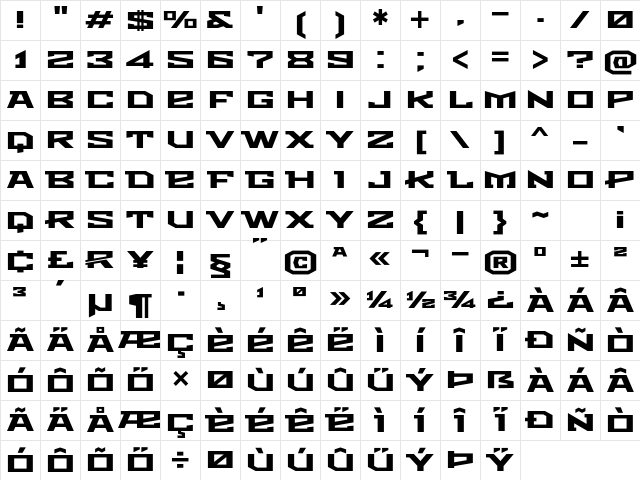
Metro Regular
Foundry: Alexey Maslov, Jovanny Lemonad
Designer: Alexey Maslov and Jovanny Lemonad
Metro Family
Design Context for Metro
Metro is a composed and adaptable typeface that performs quietly and consistently across a wide range of design contexts.